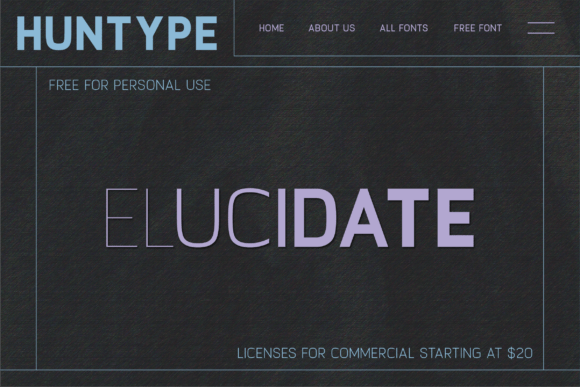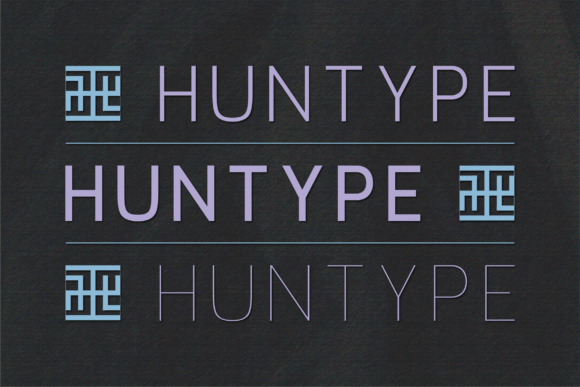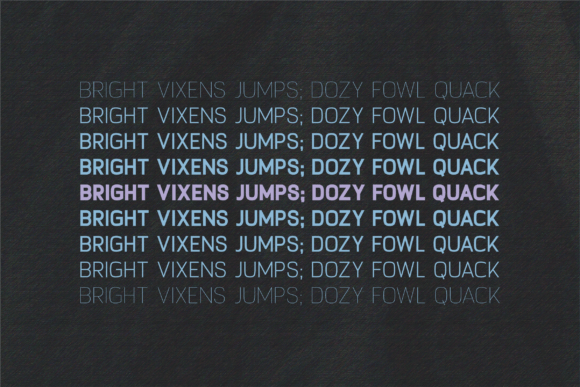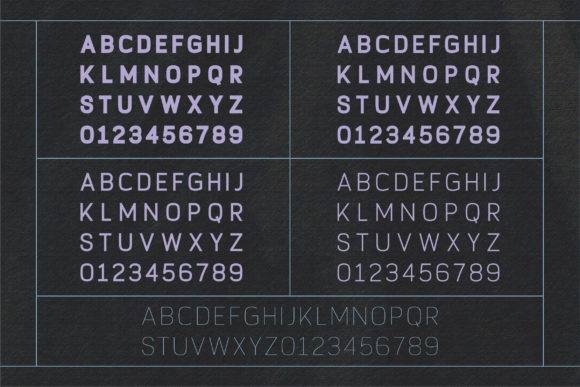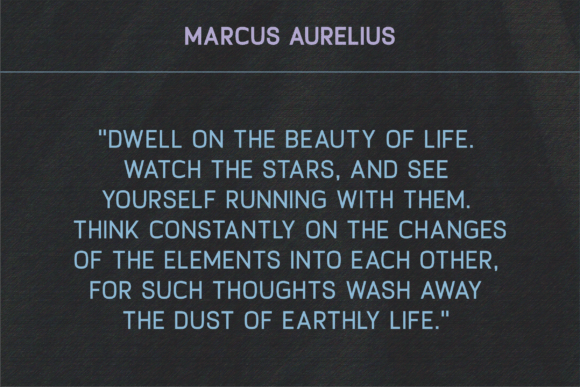
Elucidate Font: The Epitome of Modern Sophistication in Typography
In the realm of typography, the Elucidate Font stands out as a beacon of modernity and versatility. This font family masterfully blends clean geometric forms with a subtle sophistication, making it an indispensable tool for designers and crafters alike. The Elucidate Font is not just a typeface; it’s an experience that brings a contemporary aesthetic to the forefront of any design project.
A Harmonious Balance of Form and Function
At the heart of the Elucidate Font is its adaptable style, which is evident in its precise letterforms and sleek design. Each character is meticulously crafted to strike a balance between sharp lines and gentle curves, creating a harmonious visual flow that is both impactful and refined. This balance is what sets Elucidate apart, making it suitable for a wide range of applications, from branding and logos to headlines and various design projects.
Versatility at Its Core
One of the defining features of the Elucidate Font is its comprehensive range of weights. This versatility allows designers to explore a myriad of applications, lending a modern and professional feel to any endeavor. Whether you’re working on a sleek corporate logo, a bold headline, or an intricate design project, Elucidate provides the flexibility to adapt to any stylistic requirement. Each font in the Elucidate family stands alone, impactful and refined in its own right, ensuring that your design maintains a cohesive and sophisticated look.
Perfect for Modern Design Projects
The clean, geometric aesthetic of the Elucidate Font makes it particularly suitable for projects that demand a contemporary and sophisticated look. In today’s fast-paced digital landscape, having a font that can convey modernity and professionalism is invaluable. Elucidate excels in this regard, offering a crisp and clear appearance that enhances readability while imparting a sleek, modern feel to your designs.
Applications of Elucidate Font
The applications of the Elucidate Font are vast and varied. Here are a few areas where it truly shines:
- Branding: Create a lasting impression with a font that exudes professionalism and modernity.
- Logos: Stand out with a unique and memorable logo that captures the essence of your brand.
- Headlines: Grab attention with bold and impactful headlines that are both stylish and readable.
- Design Projects: Elevate your design projects with a font that offers both versatility and sophistication.
Why Choose Elucidate Font?
Choosing the Elucidate Font for your design projects comes with numerous benefits:
- Modern Aesthetic: Instantly give your designs a contemporary look and feel.
- Versatility: Use it across a variety of projects, from digital content to print materials.
- Readability: Maintain high readability even at smaller sizes, making it perfect for body text and captions.
- Professionalism: Elevate your brand’s image with a sophisticated and clean typeface.
The Elucidate Font is more than just a typeface; it’s a design solution that meets the demands of modern design. Its blend of clean geometric forms, subtle sophistication, and versatility makes it an essential tool for designers looking to create impactful and refined work. Whether you’re working on branding, logos, headlines, or any design project, Elucidate offers the perfect combination of style, readability, and professionalism. Embrace the power of Elucidate Font to elevate your designs and make a lasting impression.